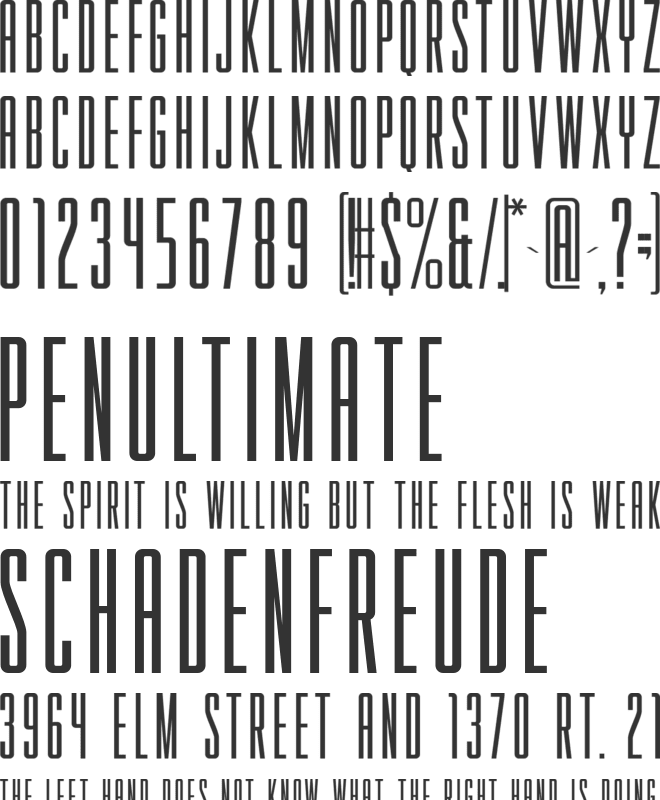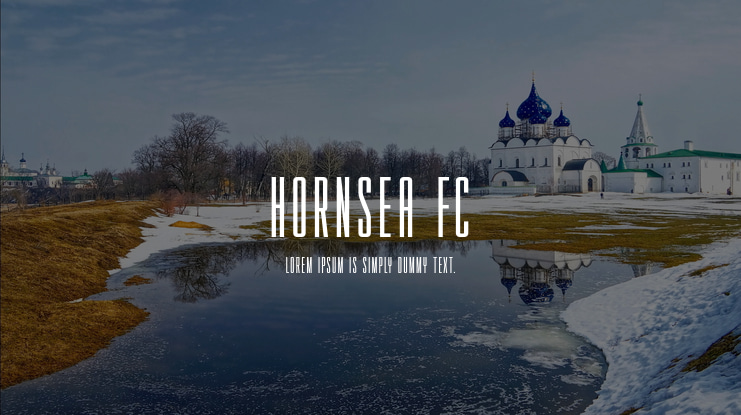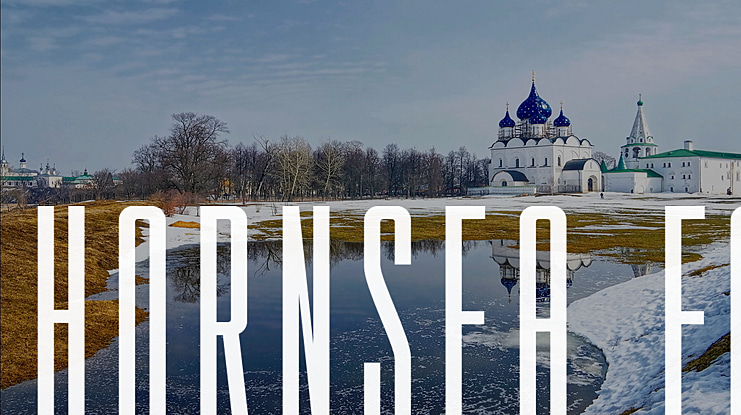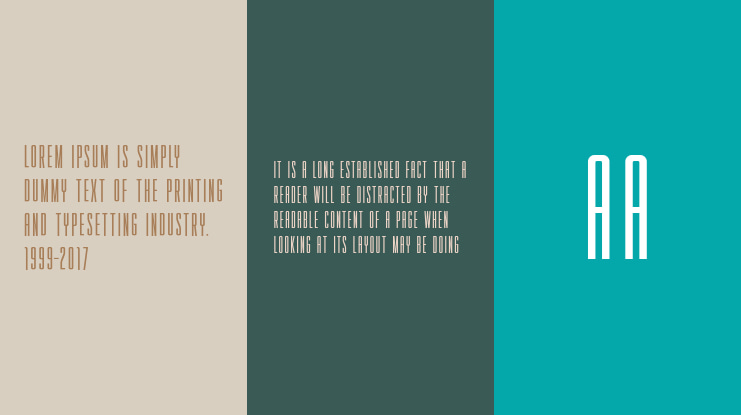
HORNSEA FC Font Family
This is a simple sans serif font crafted to give your headlines and logotype projects a stylish touch. The font is suitable for any branding project like logo, t-shirt printing, sporting design, and many more. It will look assertive in a wide range of contexts